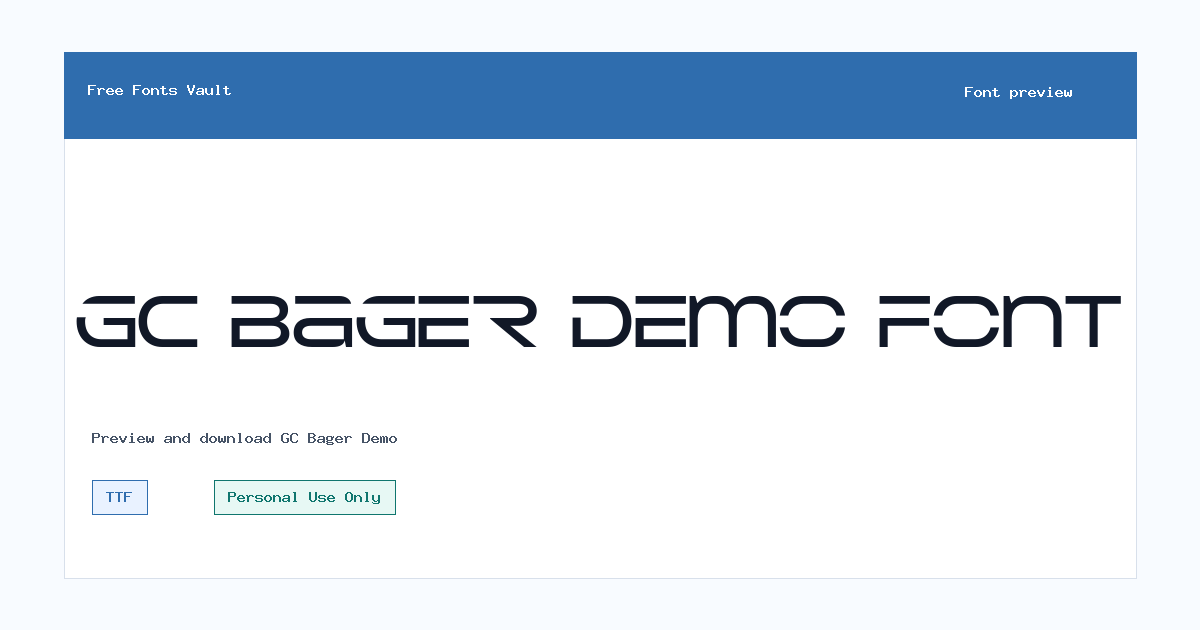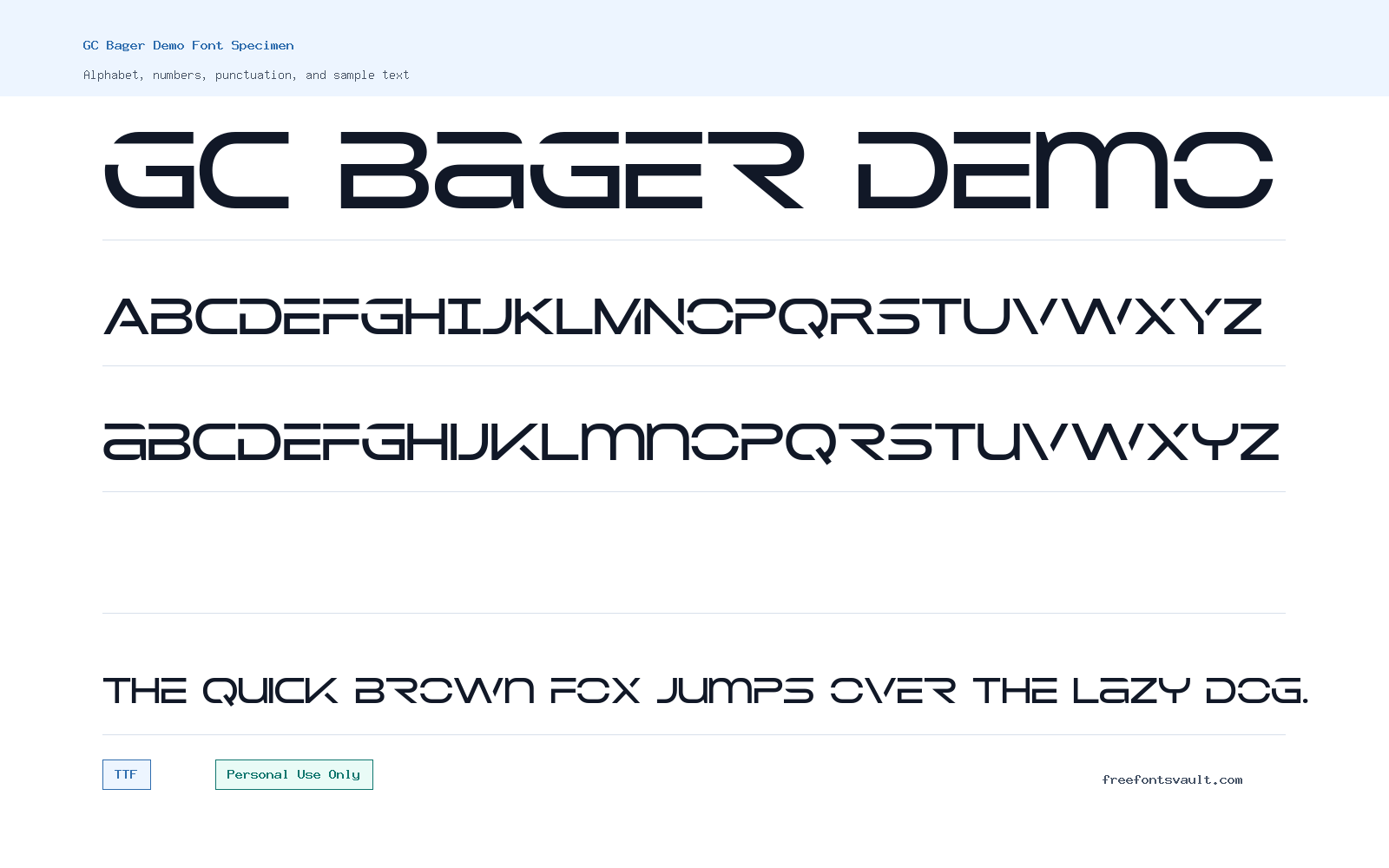
GC Bager Demo
- Designer Laila Nuzul Maghfiroh of Glyphonic
GC Bager Demo font.
GC Bager Demo is a sans serif font family from Glyphonic with a clean, direct look that works well for short display text, title experiments, and visual mockups. The download contains Regular and Bold TTF styles, and the license is Personal Use Only.
About GC Bager Demo
GC Bager Demo gives designers a simple sans serif option for testing strong headings, poster text, logo drafts, social graphics, and web layout concepts. With Regular and Bold weights, it can handle basic contrast without needing a large font family. Use the Regular style when you want a calmer line of text, and switch to Bold when a headline or label needs more presence.
- Sans serif demo family with a clean Regular style and a stronger Bold style
- Useful for quick hierarchy tests, headline trials, poster layouts, and logo draft exploration
- Headline previews for posters, flyers, banners, and social media graphics
- Logo concept sketches and early brand direction tests before licensing a final font
- Website mockups, landing page hero text, navigation labels, and UI style exploration
- Personal projects such as mood boards, invitations, quote cards, and layout studies
- Pairing tests with serif, script, or geometric sans fonts in non-commercial compositions
Who designed GC Bager Demo?
The font is credited to Laila Nuzul Maghfiroh of Glyphonic.
What is GC Bager Demo best used for?
It is most useful for short display text such as headings, poster titles, social media graphics, logo drafts, and web design mockups.
Does GC Bager Demo work for body text?
Test it first. The family has Regular and Bold styles, but the safest use is short text, labels, and headings rather than long reading passages.
What should I pair with GC Bager Demo?
For contrast, try a readable serif for body copy or a quiet neutral sans for interface text. Avoid pairing it with another strong display font unless the design is intentionally bold.